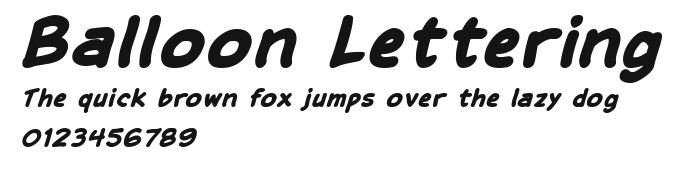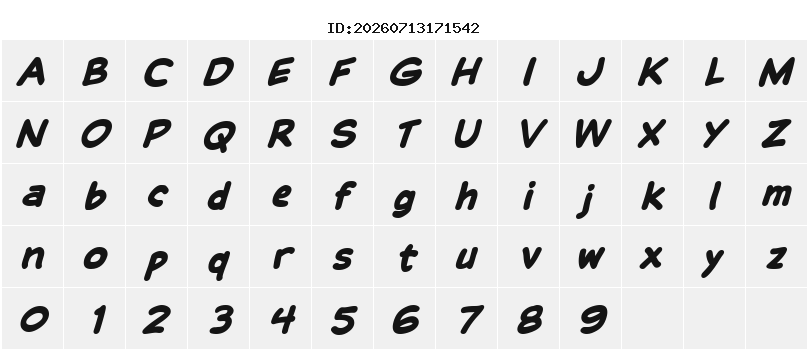
• Font Name: Balloon Lettering
About Balloon Lettering.ttf
Balloon Lettering.ttf is a modern, elegant sans-serif font designed for ultimate readability and visual harmony. Perfect for branding, headlines, web design, and print materials.